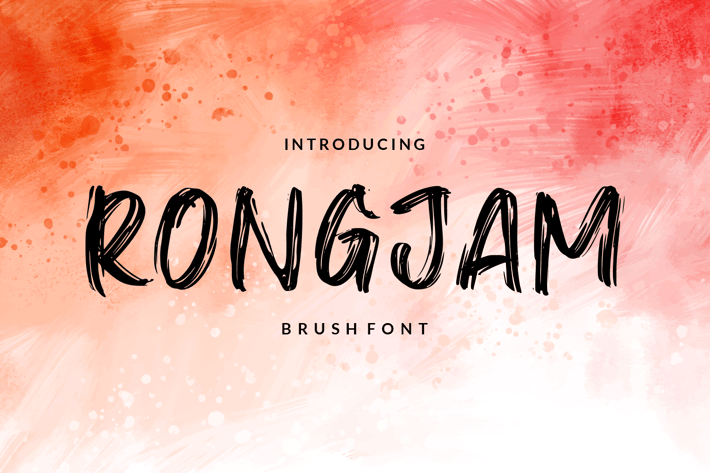
Rongjam - Brush Font
Cool hand drawn font crafted from textured dry brush, this is Rongjam. An all caps typeface that very recommended for outdoor projects, sport, hipster, and youth.